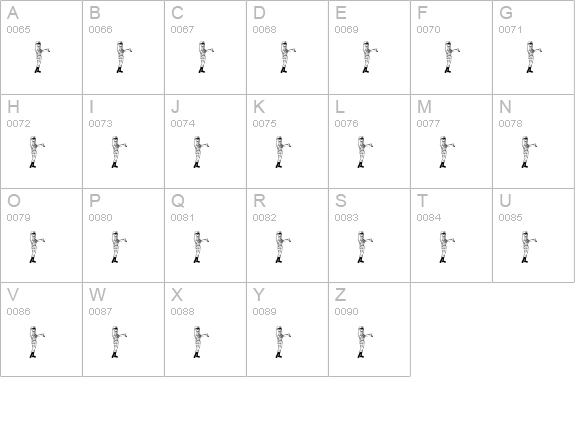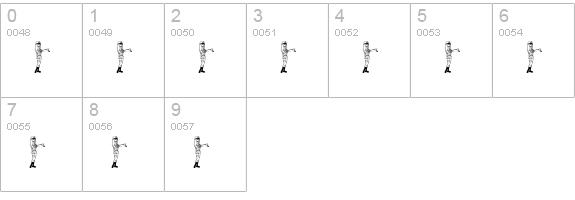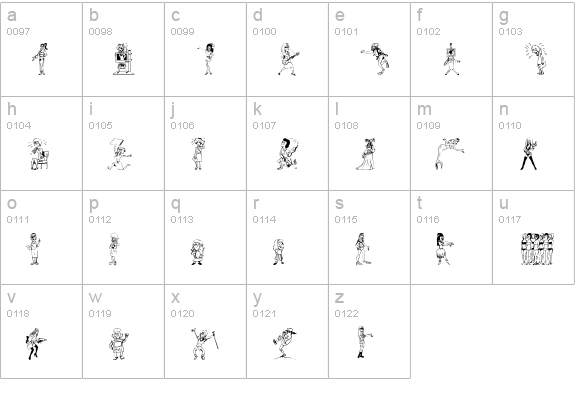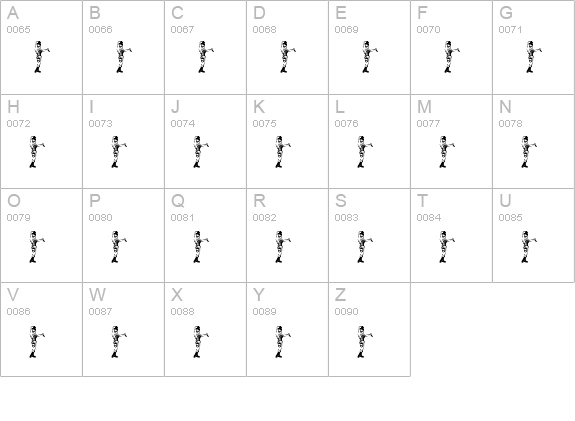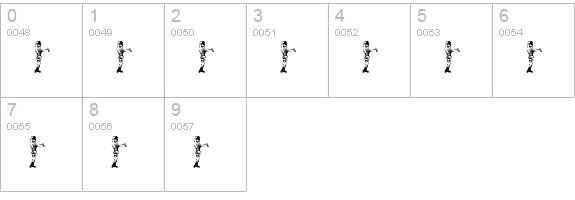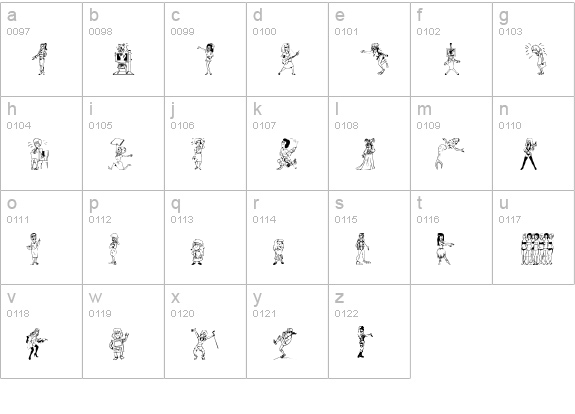
26WOMAN font is a stylish and elegant typeface that exudes sophistication and femininity. With its unique design and delicate curves, this font is perfect for adding a touch of glamour to any project. The flowing lines and intricate details of 26WOMAN font make it a versatile choice for a wide range of design applications, from invitations and branding to social media graphics and more. Best of all, 26WOMAN font is available for free download at FontsMarket.com. Whether you're a designer looking to add a new font to your collection or someone in need of a beautiful typeface for a personal project, 26WOMAN font is the perfect choice. Download it today and add a touch of elegance to your designs with this stunning font.